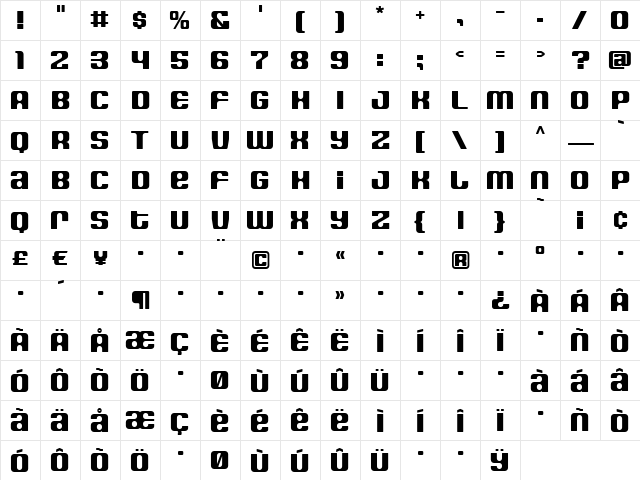
HOUSE3009SpaceageHeavyRound Regular
Design Context for HOUSE3009SpaceageHeavyRound Typeface
HOUSE3009SpaceageHeavyRound softens its letterforms with rounded terminals, giving it an approachable, friendly quality that works well in consumer-facing and digital contexts.
Well-suited to UI design, mobile interfaces, and any brand that wants approachability without sacrificing clarity.
Font Pairing: Pairs well with a rounded or humanist sans for body copy, maintaining the friendly tone without relying on HOUSE3009SpaceageHeavyRound to carry extended reading.
Pro Tip: Use HOUSE3009SpaceageHeavyRound for UI elements, app interfaces, and anywhere a friendly, approachable tone needs to be maintained without sacrificing clarity.